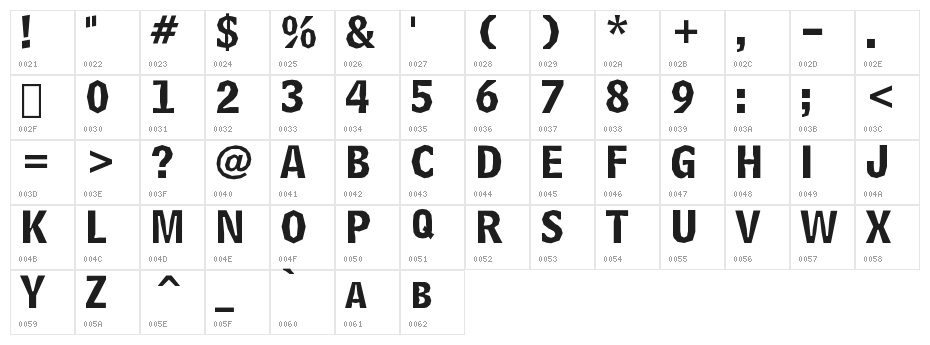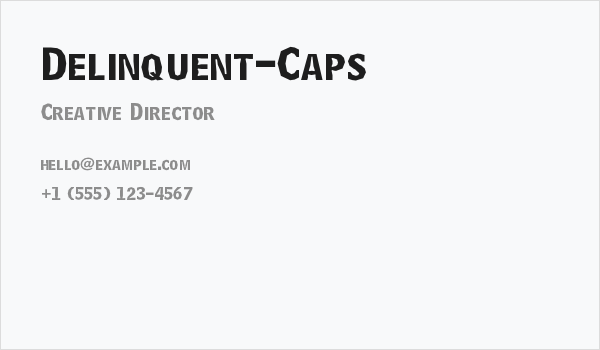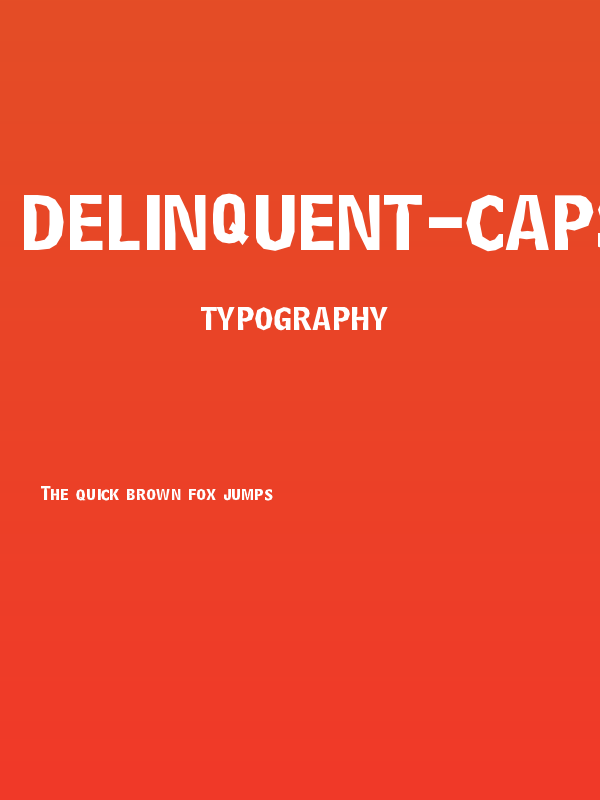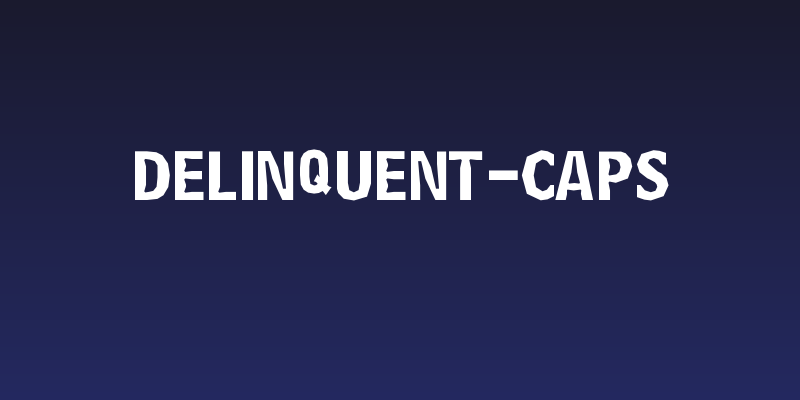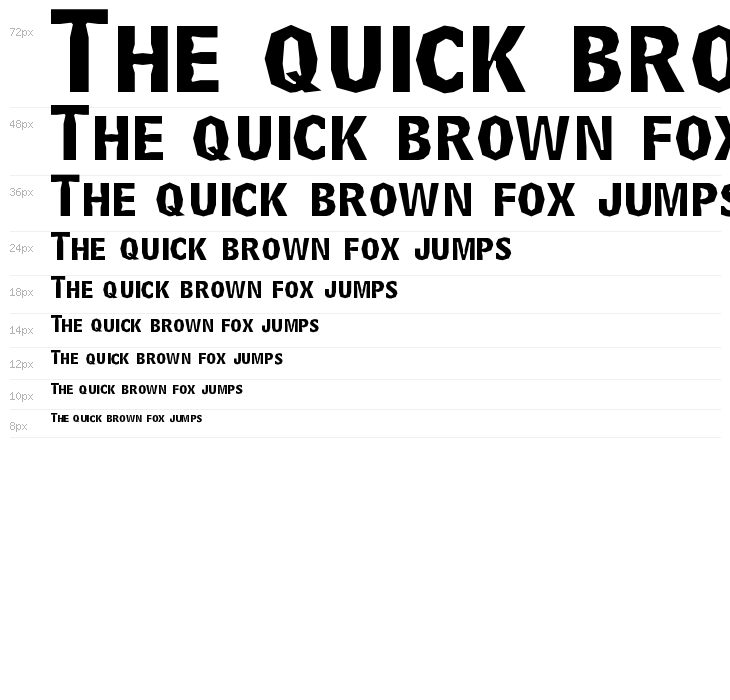
Delinquent-Caps Font
Delinquent-Caps Description
This font features a bold and rugged design with a distinctly edgy and rebellious aesthetic. The characters are crafted with sharp, angular edges and irregular strokes, giving them a hand-cut appearance. The uppercase letters are prominent and commanding, while the numbers and special characters maintain the same bold style. The font's unique style makes it stand out, with a slightly distressed look that adds to its character. It is ideal for projects that require a strong, impactful visual statement.
| Overall Style | Modern, Edgy |
| Proposed Projects | Ideal for posters, album covers, streetwear branding, and any project needing a bold, rebellious look. |